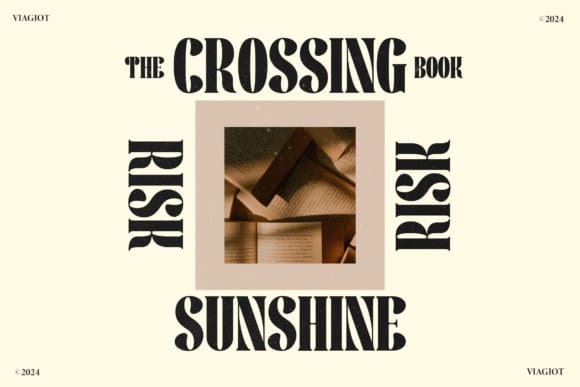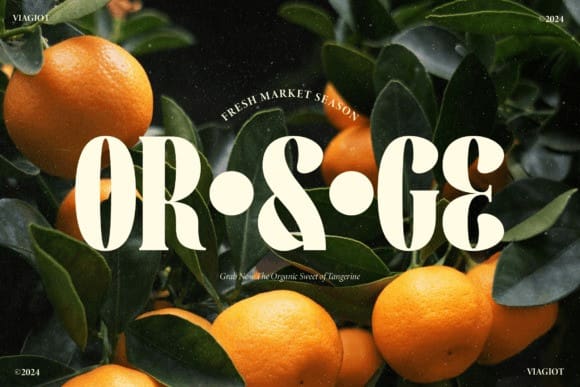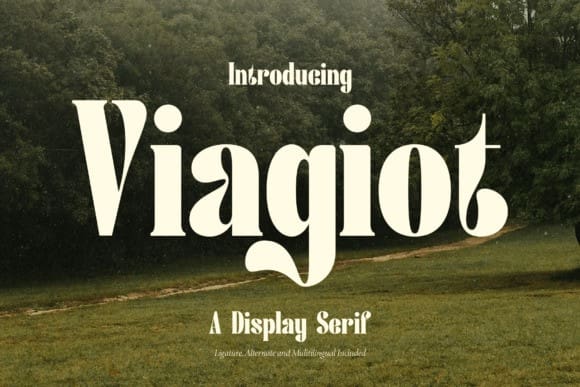
Viagiot Font
Viagiot Font is a stylish display serif font with elegant, bold letterforms. It has a modern yet classic feel, perfect for eye-catching titles, headlines, or logos. Its unique design makes it stand out and adds personality to any project.